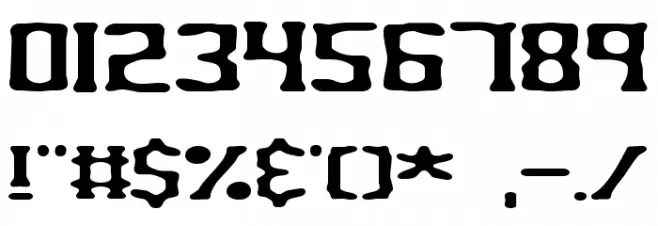
Aspartame BRK Font
Aspartame BRK Description
This font features a bold and unique design with a playful, almost whimsical appearance. The characters are thick and have a slightly irregular shape, giving them a hand-drawn feel. The uppercase and lowercase letters maintain a consistent style, with rounded edges and a somewhat condensed form. The numbers and special characters follow the same design principles, ensuring a cohesive look across all elements. This font's distinct style makes it stand out, making it suitable for creative and artistic projects.
A bold, playful font with a hand-drawn, whimsical style from Uncategorized fonts.